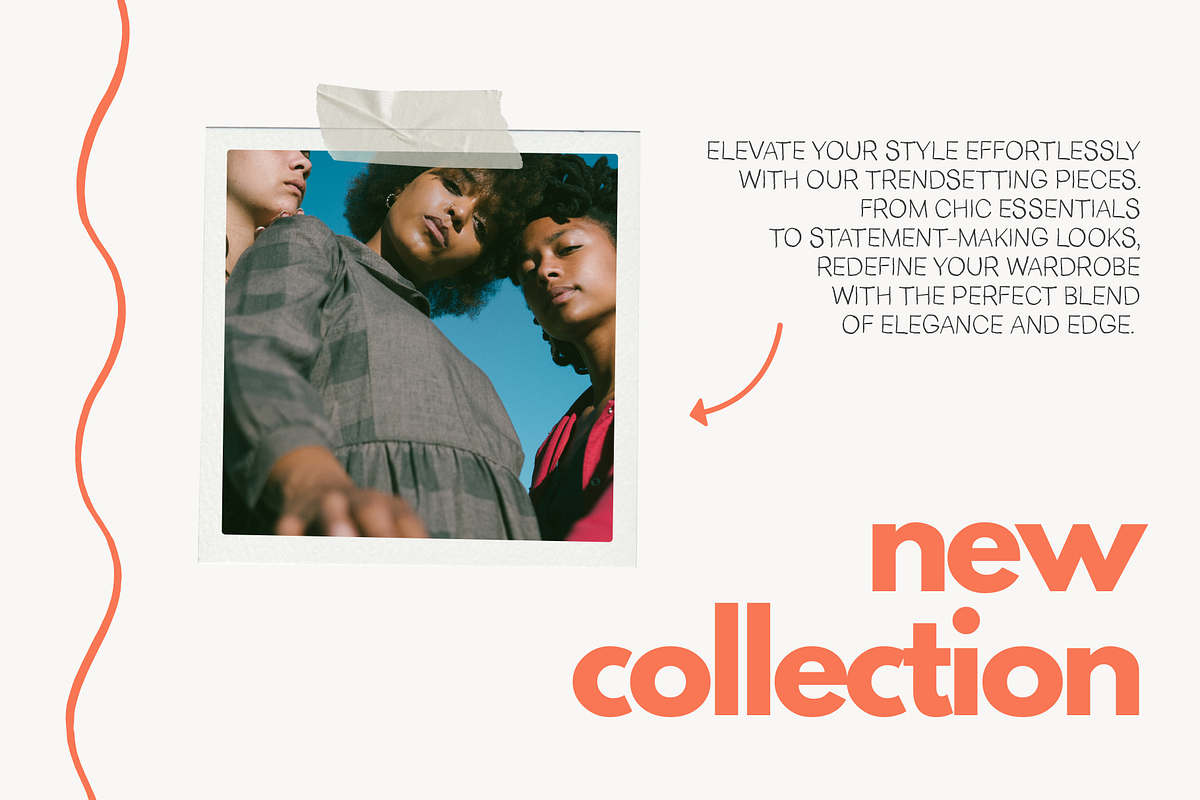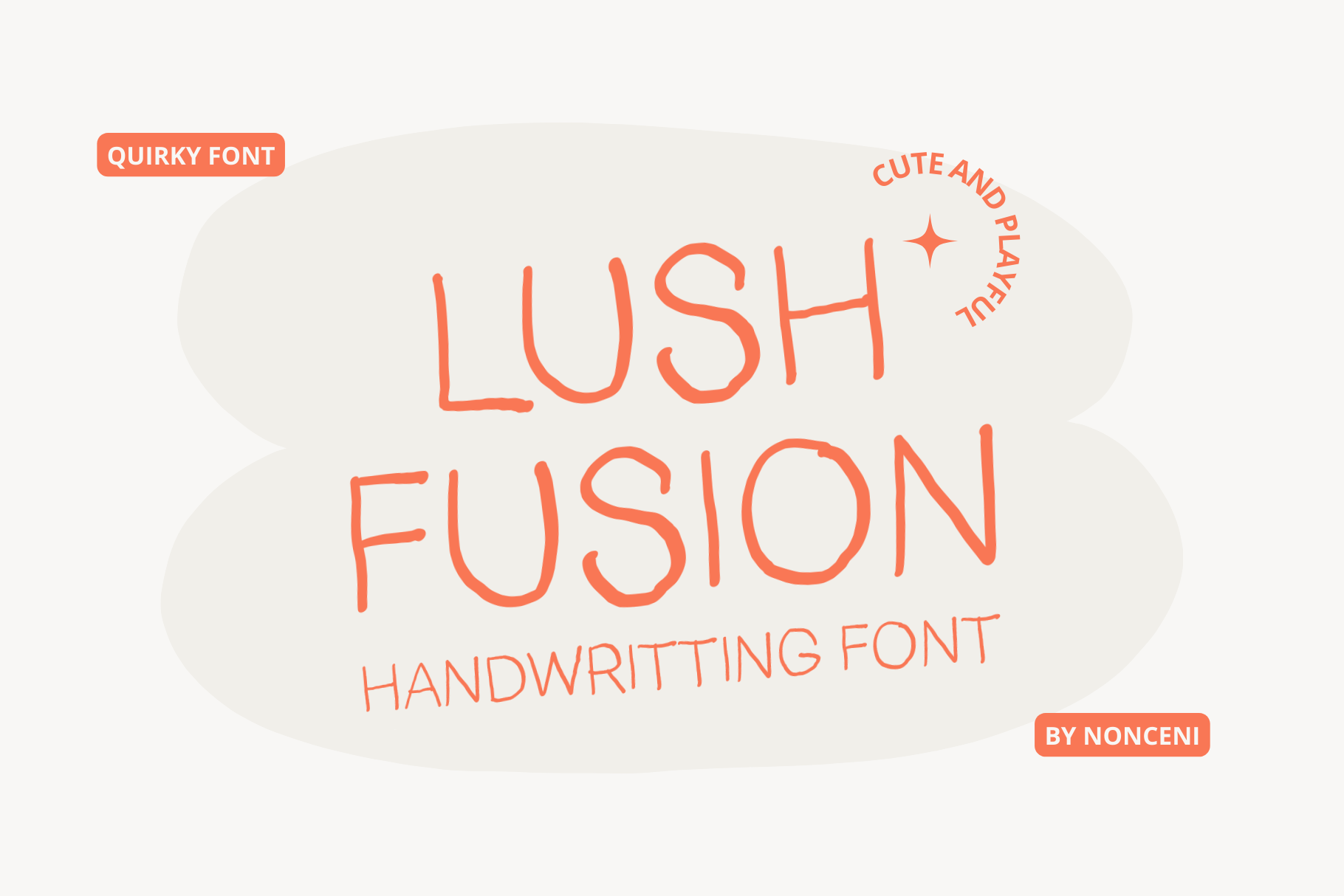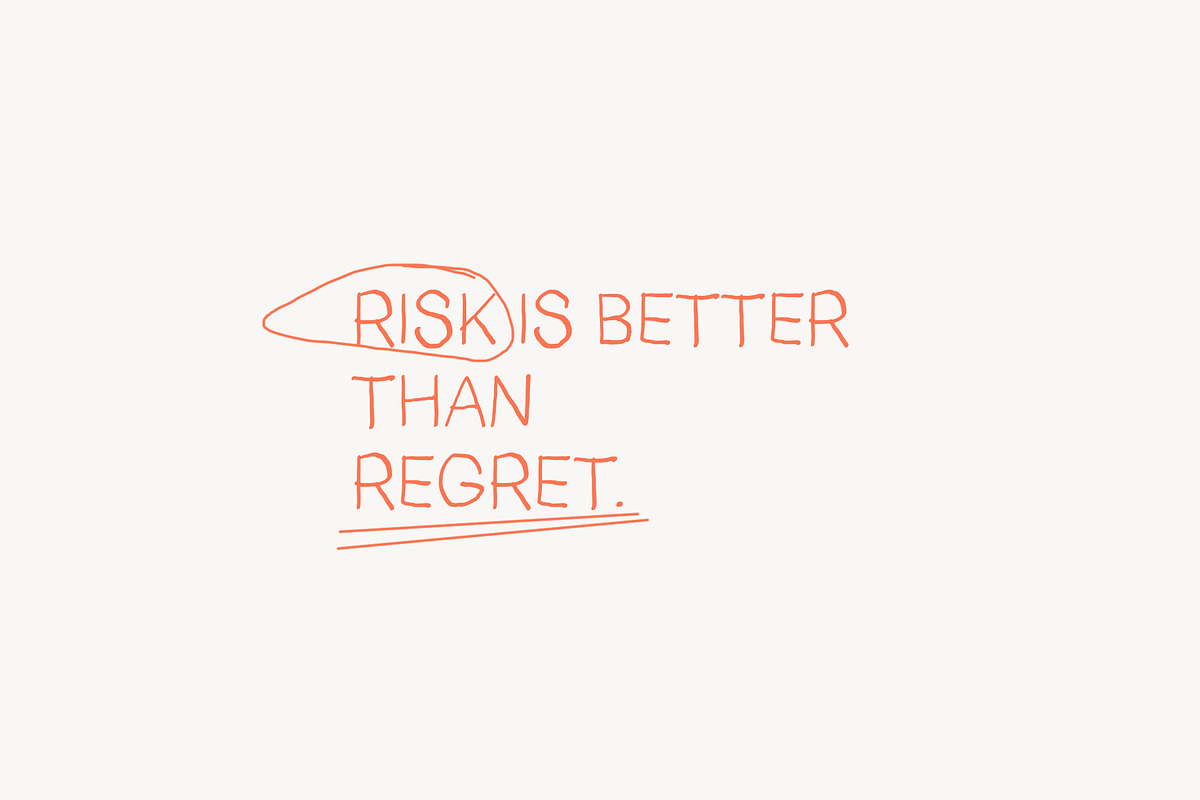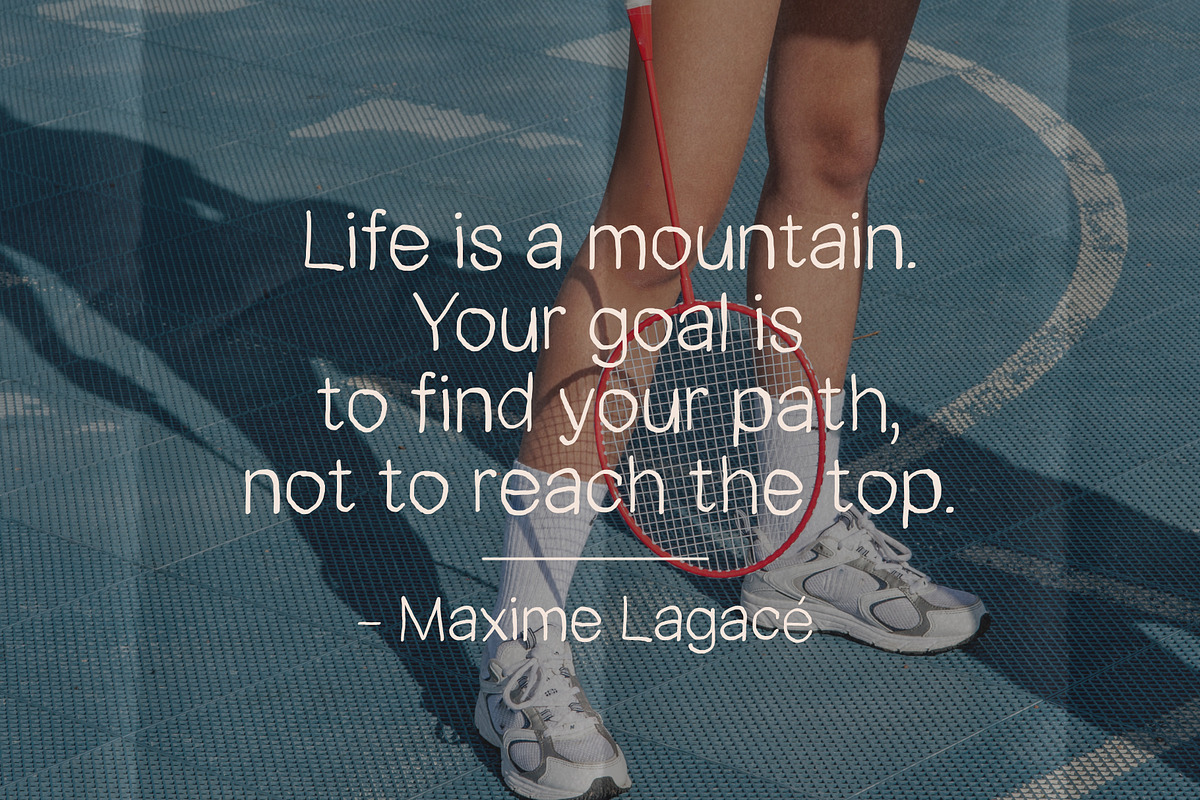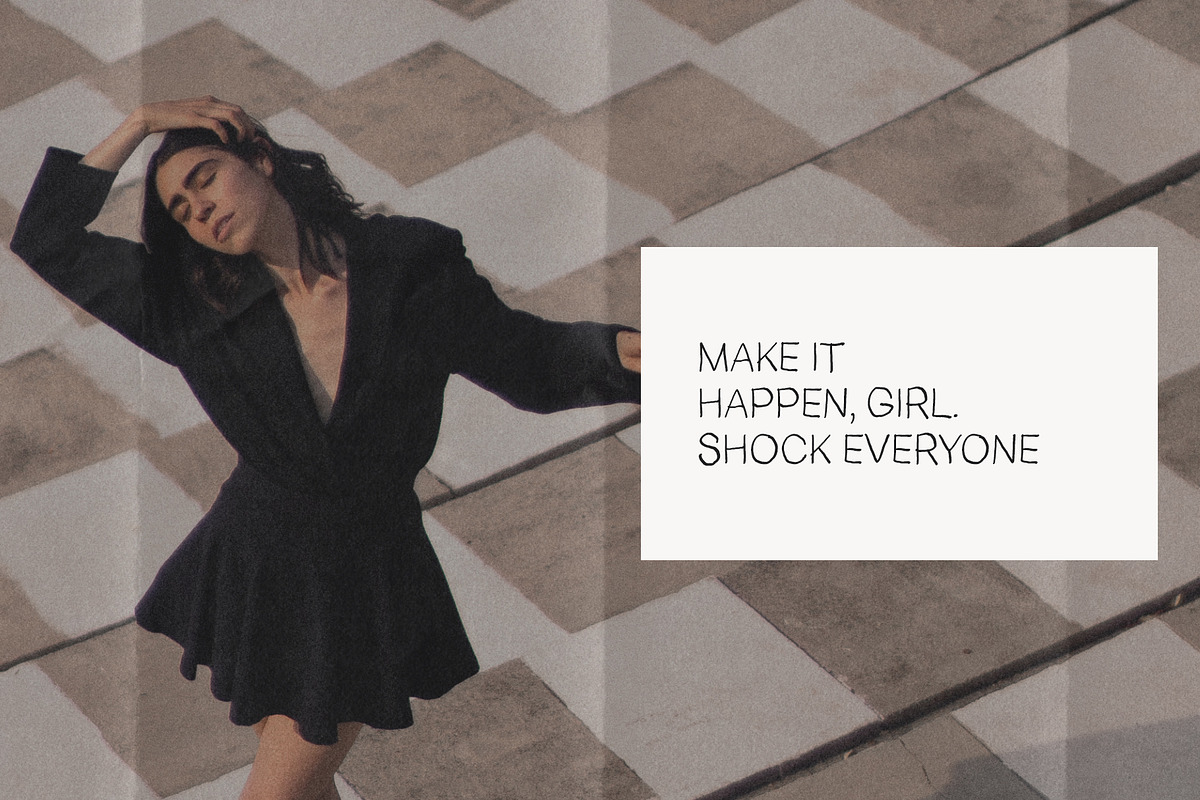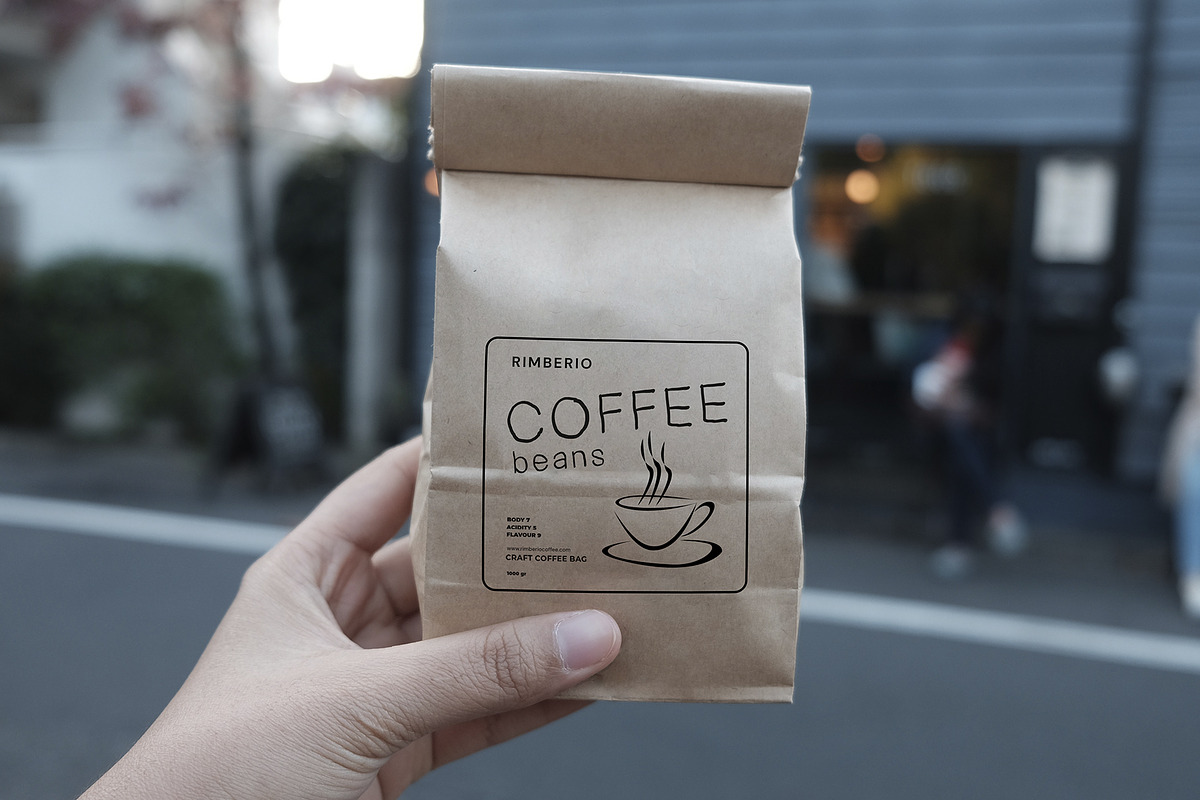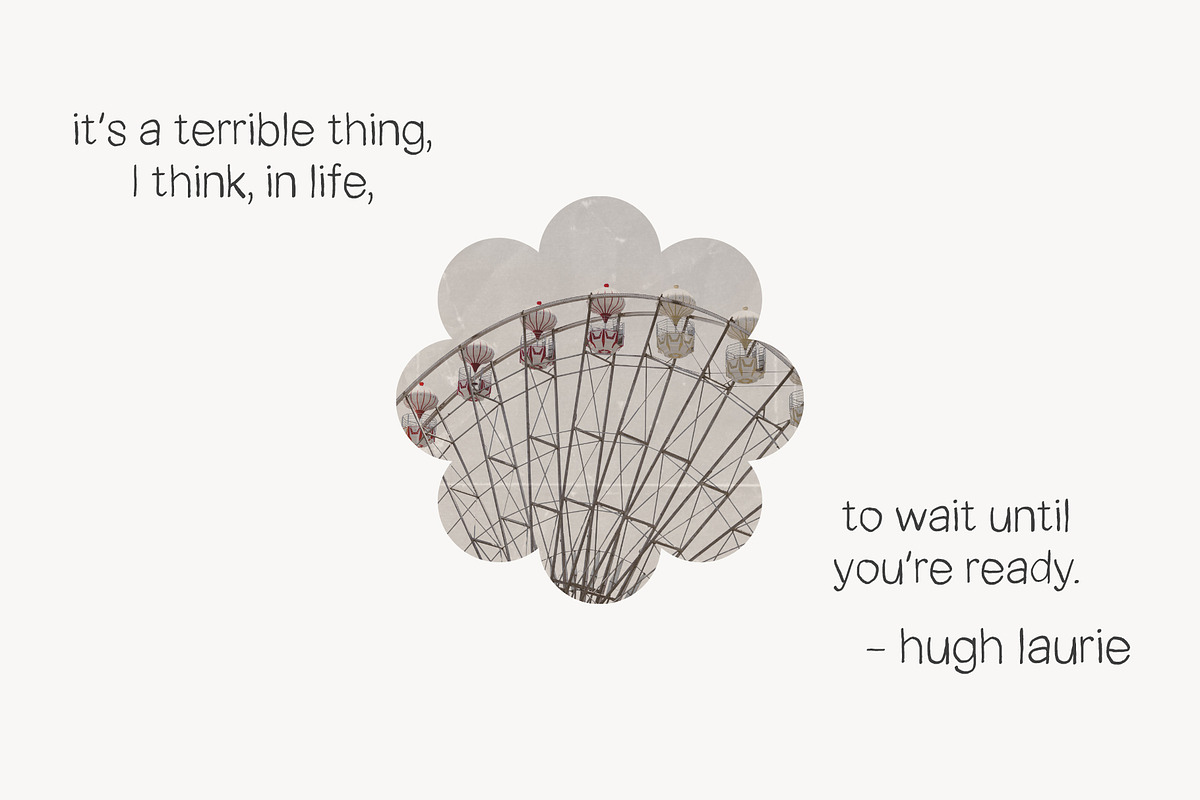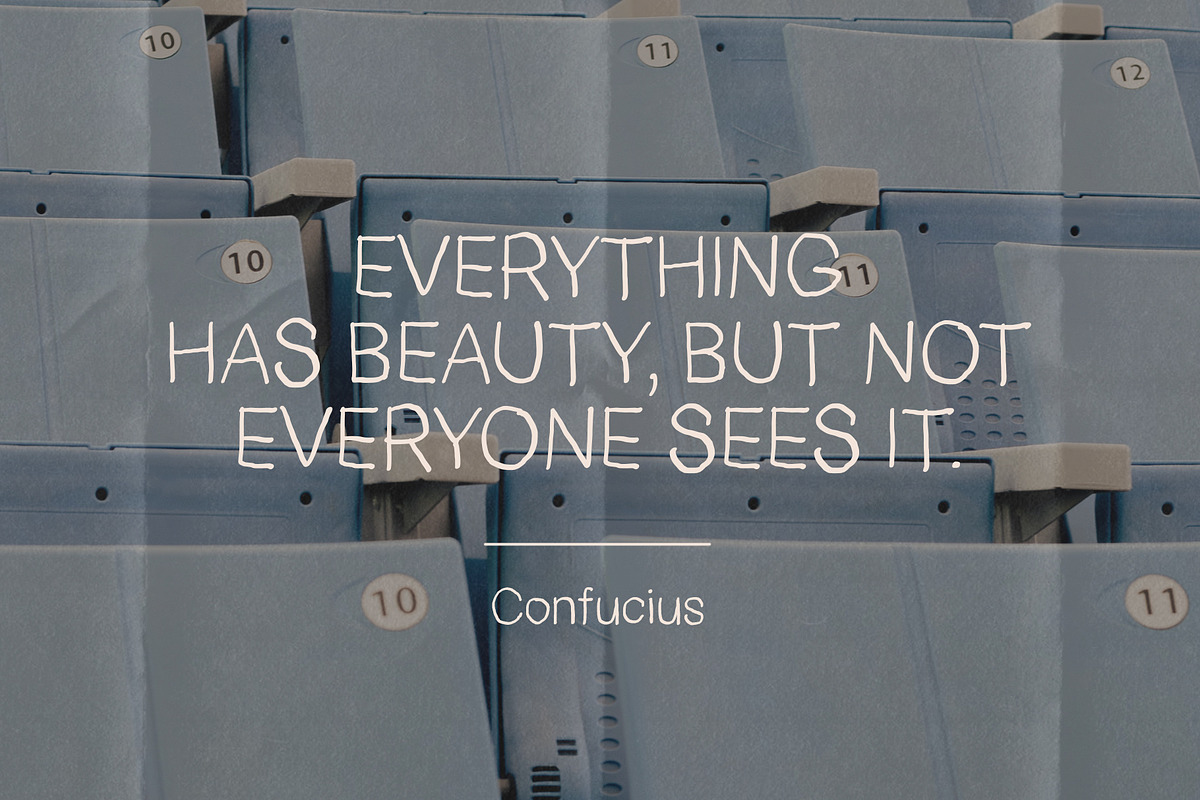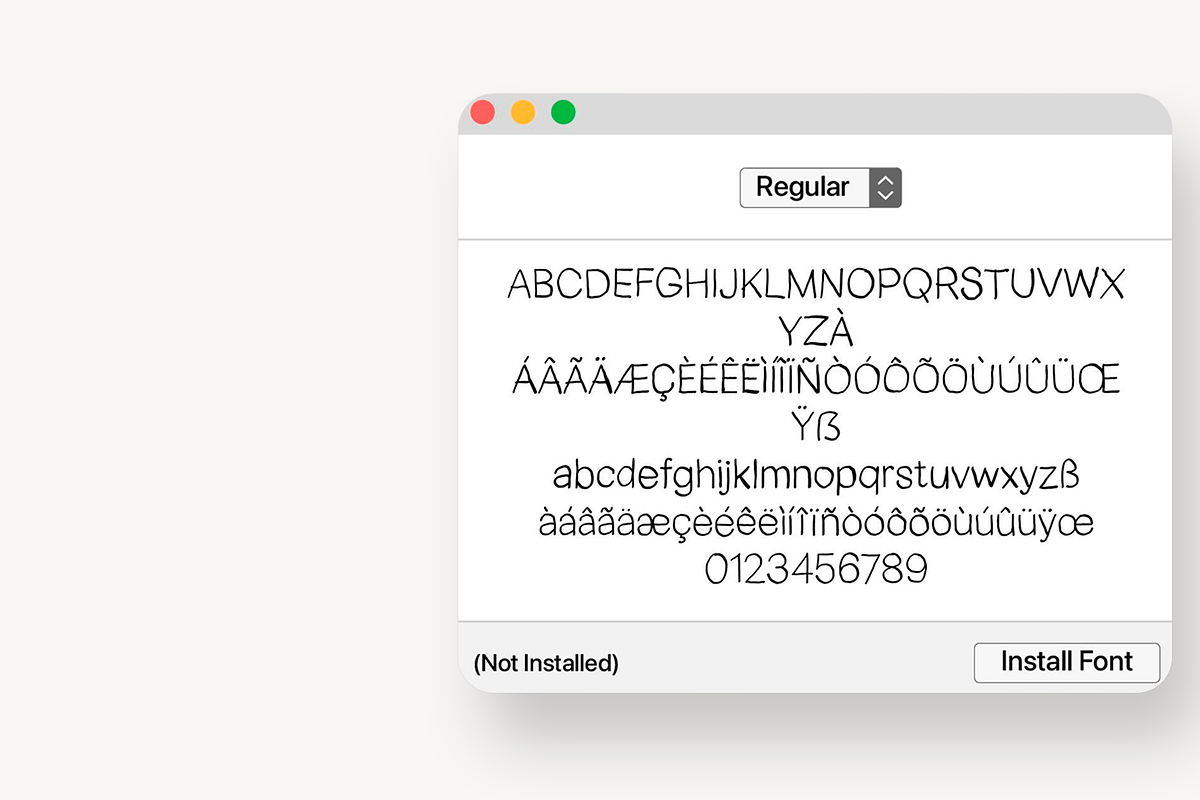
Lush Fusion Cute Handwritting Font
Introducing Lush Fusion Handwriting Font, a versatile and stylish typeface designed to bring a personal, organic touch to your creative projects. Whether you're crafting elegant invitations, designing eye-catching logos, or enhancing your social media graphics, this font merges modern aesthetics with the timeless charm of handwritten script. Perfect blend of modern and classic handwritten design.